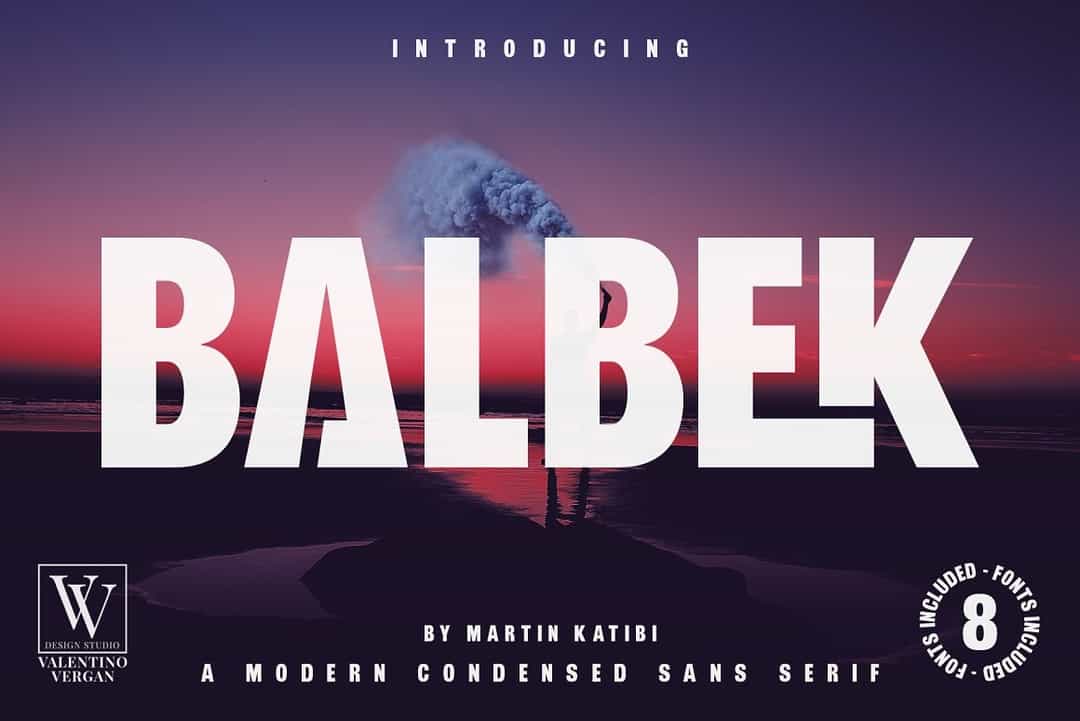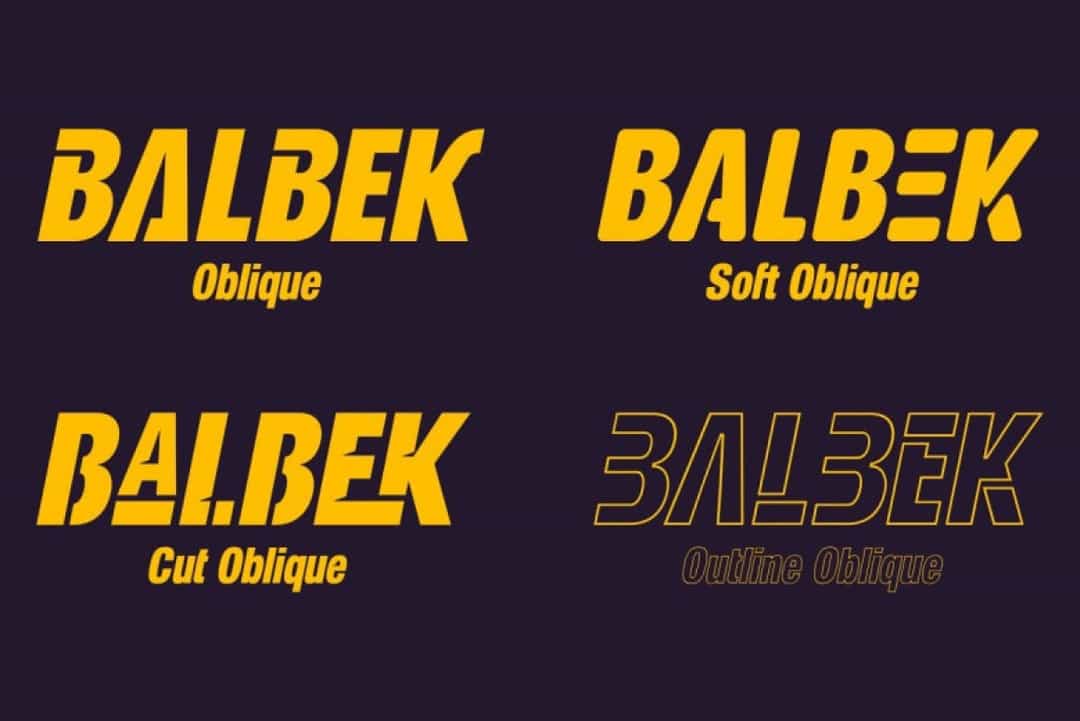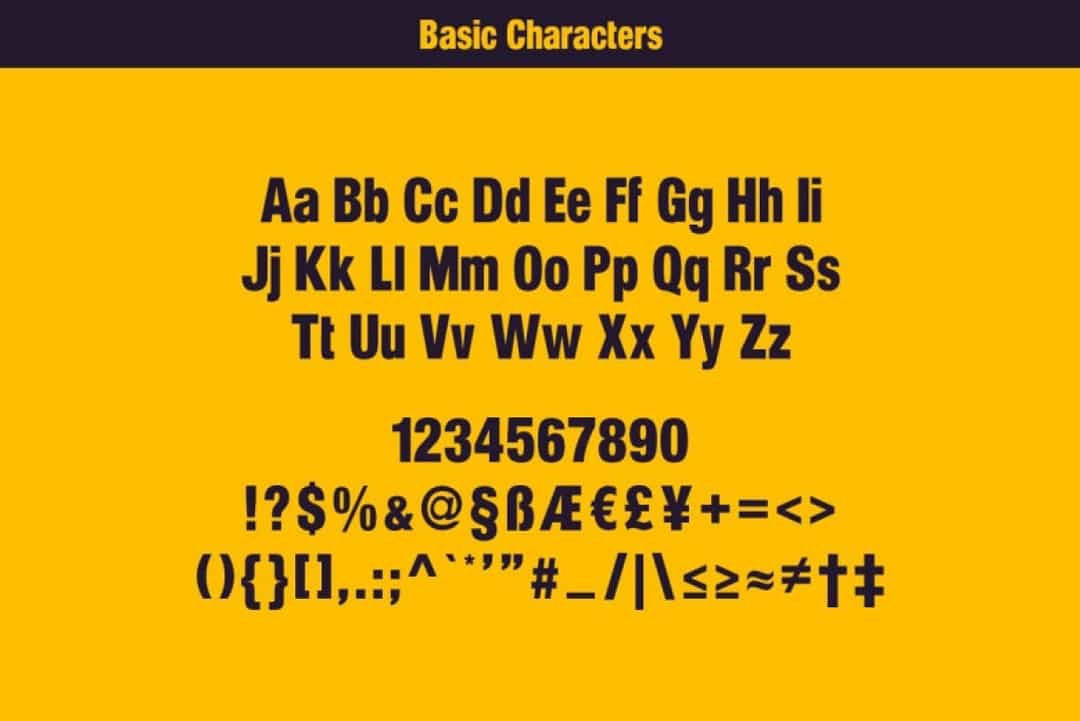
“Balbek” is a modern “condensed” sans serif ligature typeface designed by Martin Katibi and features striking weighty condensed lines. Other condensed fonts like Gabo Impact and Drive. Impact were an inspiration.